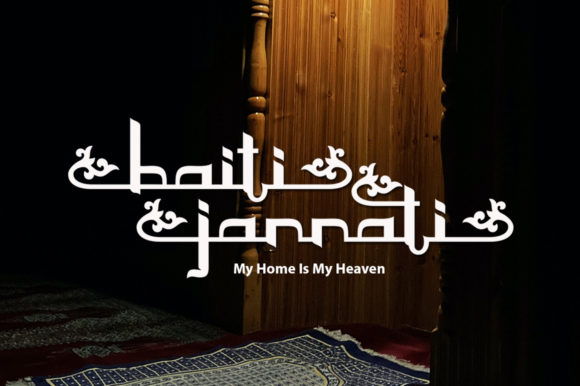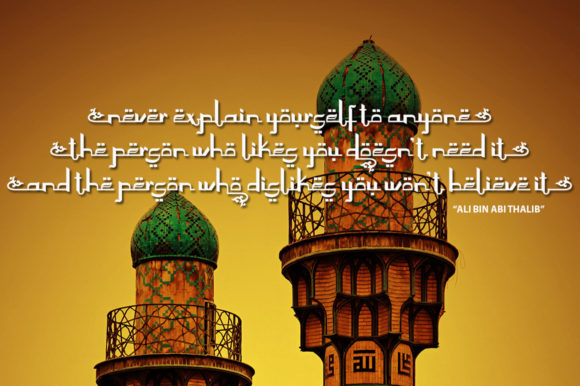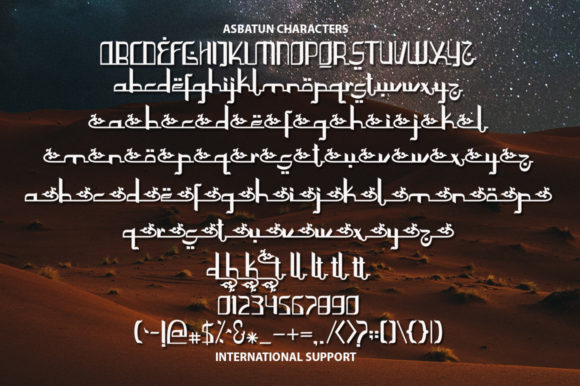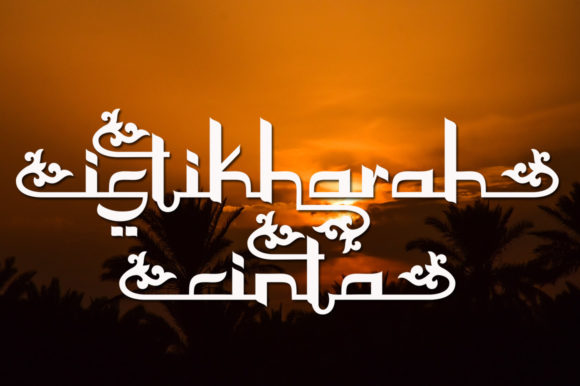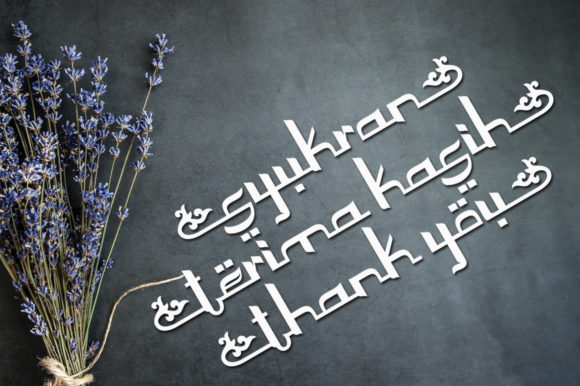
Introducing Asbatun Font: Elevate Your Designs with Authentic Arabic Calligraphy
In the world of typography, a well-crafted font can make all the difference in bringing your creative project to life. For designers and crafters looking to infuse their work with a touch of elegance and cultural richness, the Asbatun Font is an exceptional choice. This Arabic-styled calligraphy font is meticulously designed to add an authentic, unique, and modern flair to various projects, ranging from greeting cards and branding to logos and screen printing.
The Essence of Asbatun Font
Asbatun is not just another font; it’s a gateway to creating visually stunning and culturally inspired designs. Its Arabic calligraphy style lends a sophisticated and graceful look, perfect for projects that demand a high level of creativity and attention to detail. Whether you’re working on a logo that needs to stand out, a greeting card that requires a personal touch, or a brand identity that speaks to a broader audience, Asbatun Font is versatile enough to meet your needs.
Key Features of Asbatun Font
- Authentic Arabic Calligraphy: The font boasts a genuine Arabic calligraphy style, making it ideal for designers aiming to incorporate a touch of Middle Eastern elegance into their work.
- Versatility: From creative projects like greeting cards and invitations to commercial applications such as branding and screen printing, Asbatun Font’s adaptability makes it a valuable asset for any designer.
- Modern Aesthetic: While rooted in traditional Arabic calligraphy, Asbatun Font also carries a modern aesthetic. This blend of old and new ensures that your designs are not only respectful of cultural heritage but also contemporary and engaging.
Applications of Asbatun Font
The applications of Asbatun Font are vast and varied. Here are a few ideas to get you started:
- Greeting Cards and Invitations: Add a personal and elegant touch to your cards and invitations, making them memorable for recipients.
- Branding and Logos: Create a unique brand identity that stands out with the distinctive and stylish look of Asbatun Font.
- Screen Printing: Whether it’s for fabric, paper, or other materials, Asbatun Font’s clarity and beauty make it perfect for screen printing projects.
- Digital Media: Enhance your website, social media posts, or digital advertisements with the sophisticated look of Asbatun Font, engaging your audience more effectively.
Why Choose Asbatun Font?
In a sea of fonts, Asbatun stands out for several reasons:
- Uniqueness: It offers a distinctive style that can set your designs apart from the common and the mundane.
- Cultural Depth: For projects that require a nod to Arabic culture or a touch of international flair, Asbatun Font is an excellent choice.
- Quality and Craftsmanship: The font is crafted with attention to detail, ensuring high quality and consistency across various applications.
Asbatun Font is more than just a typeface; it’s a design tool that opens up a world of creative possibilities. Its blend of traditional Arabic calligraphy with a modern twist makes it a valuable resource for designers and crafters looking to create authentic, unique, and engaging projects. Whether you’re working on a small personal project or a large commercial venture, Asbatun Font is sure to elevate your designs to new heights. Explore the potential of Asbatun Font today and discover how it can transform your creative workflow.